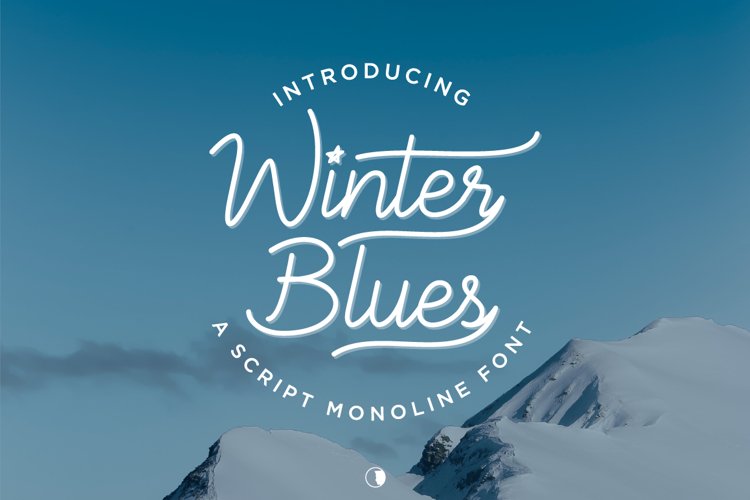
Winter Blues is a modern monoline script font and its perfect for branding projects, wedding designs, social media posts, advertisements, product packaging, product designs, label, photography, watermark, invitation, stationery and any projects that need handwriting taste.
- Stylistic Alternates
- Uppercase and Lowercase letters
- Numbering and Punctuations